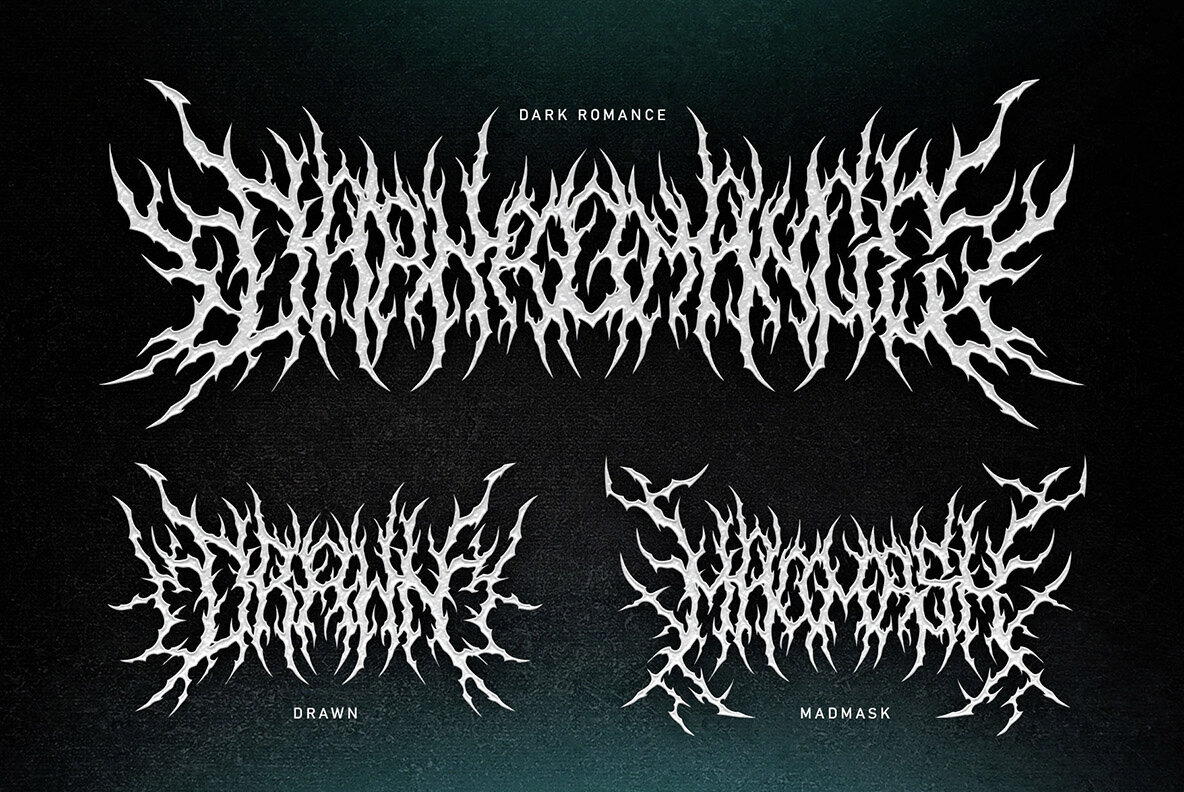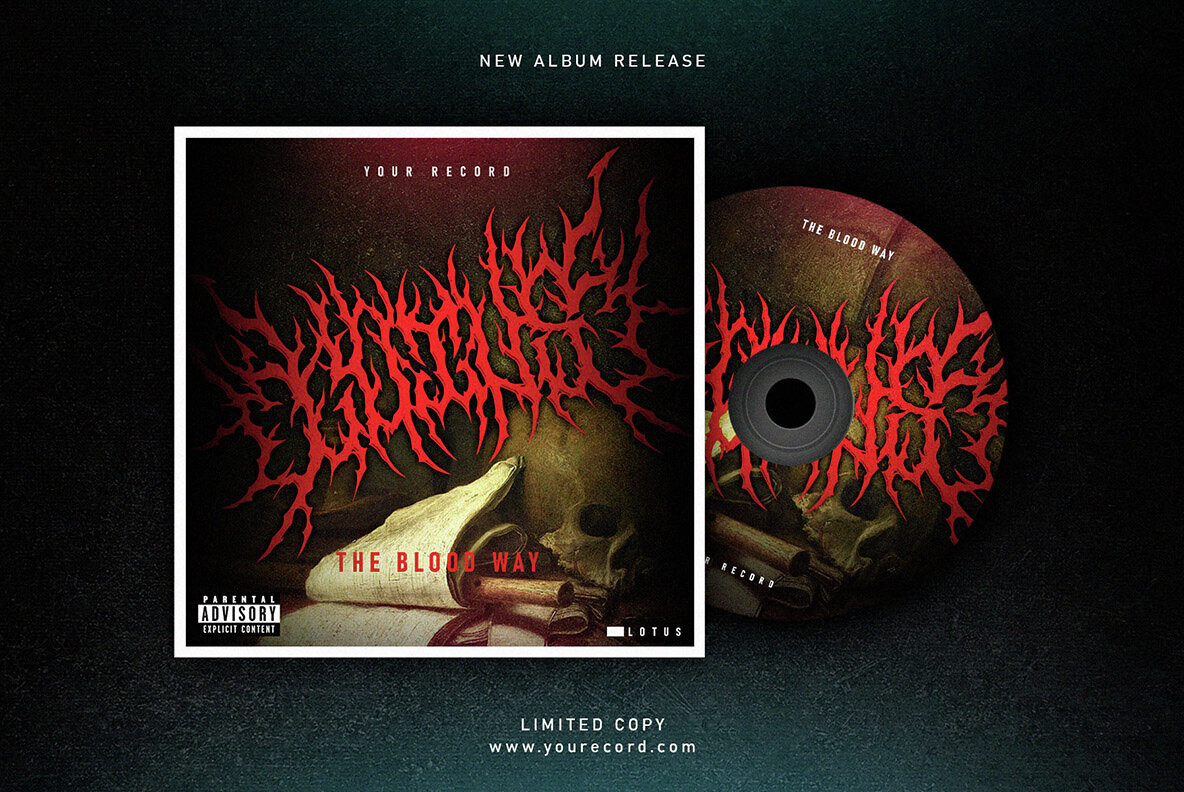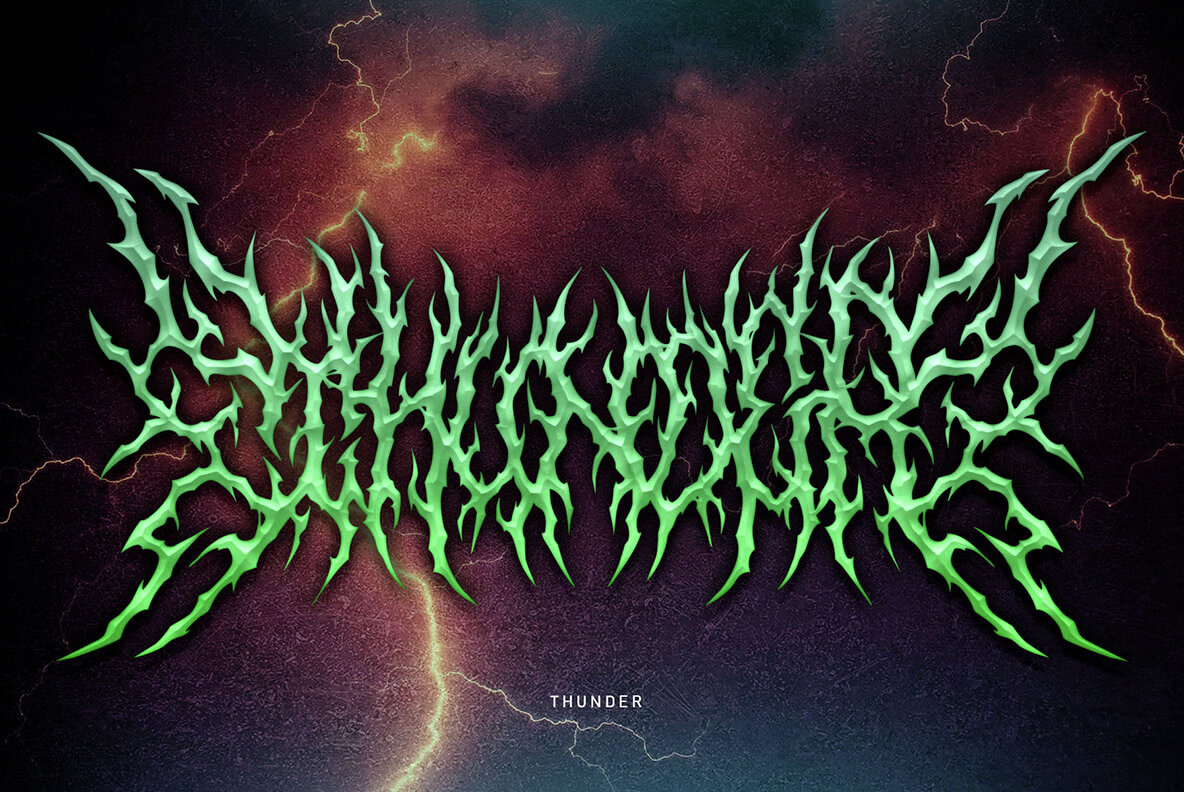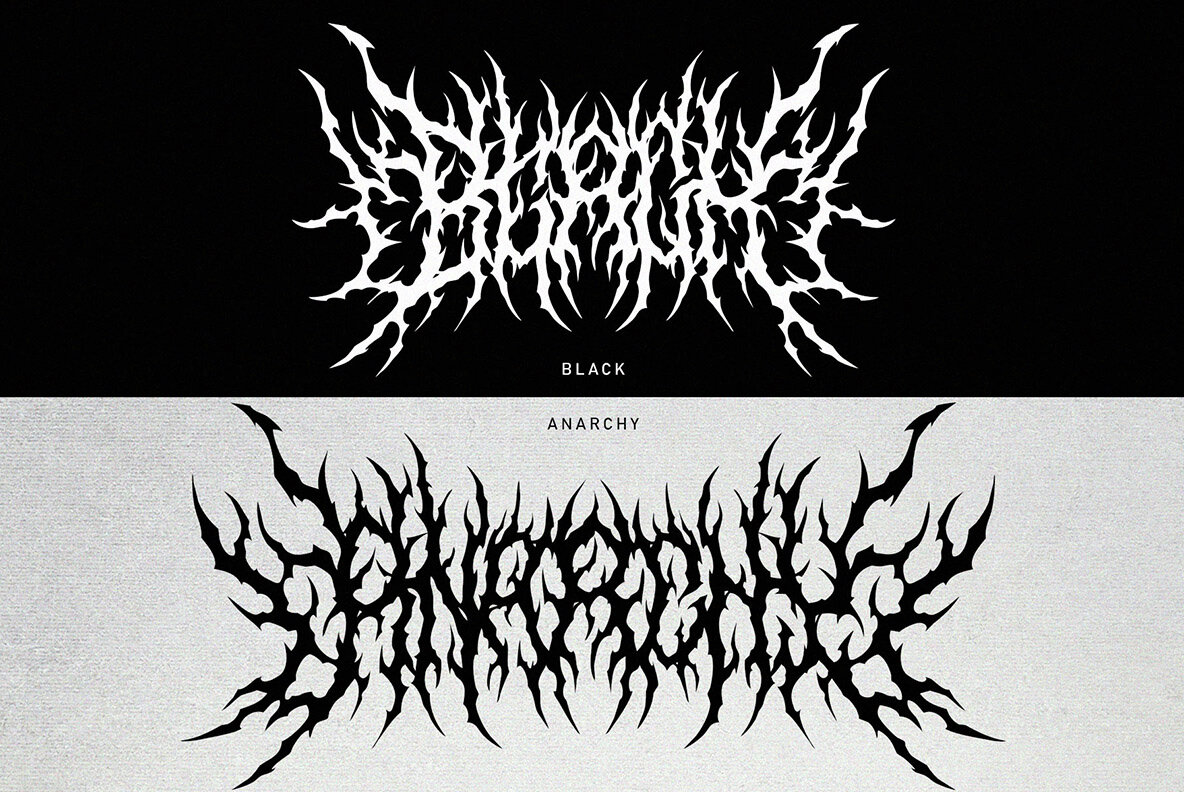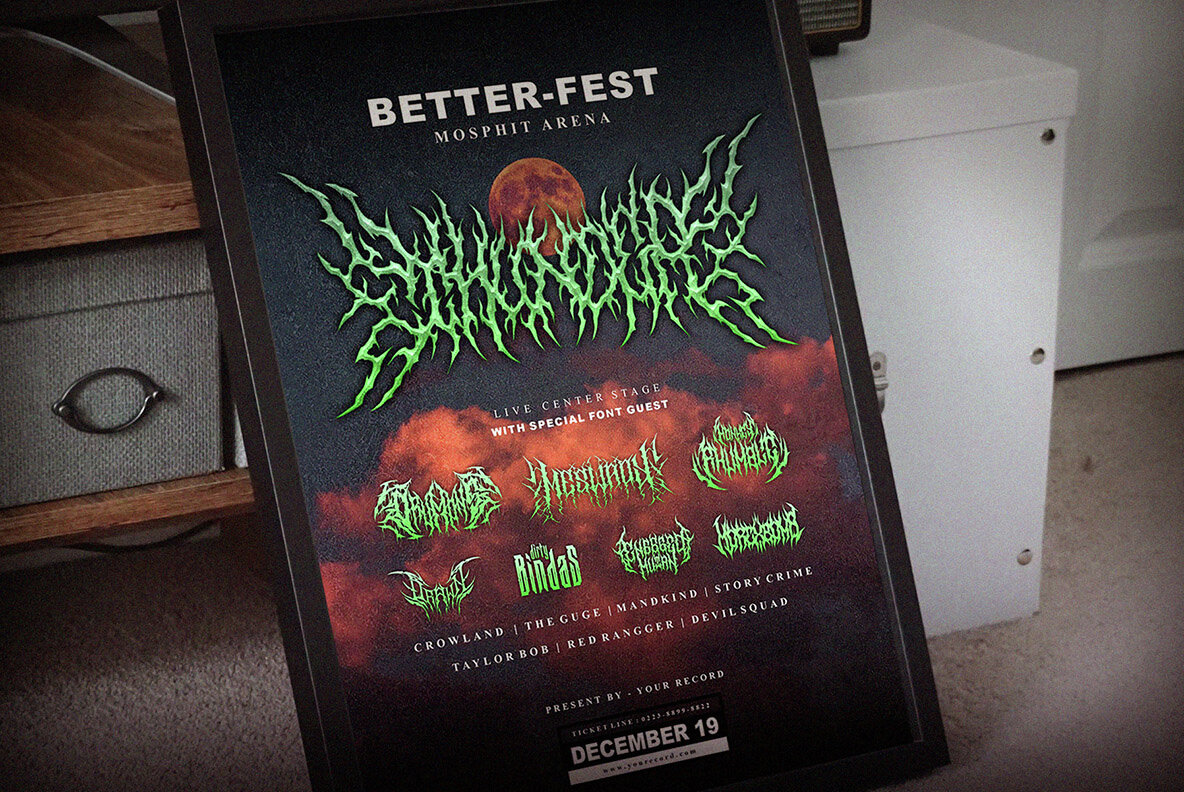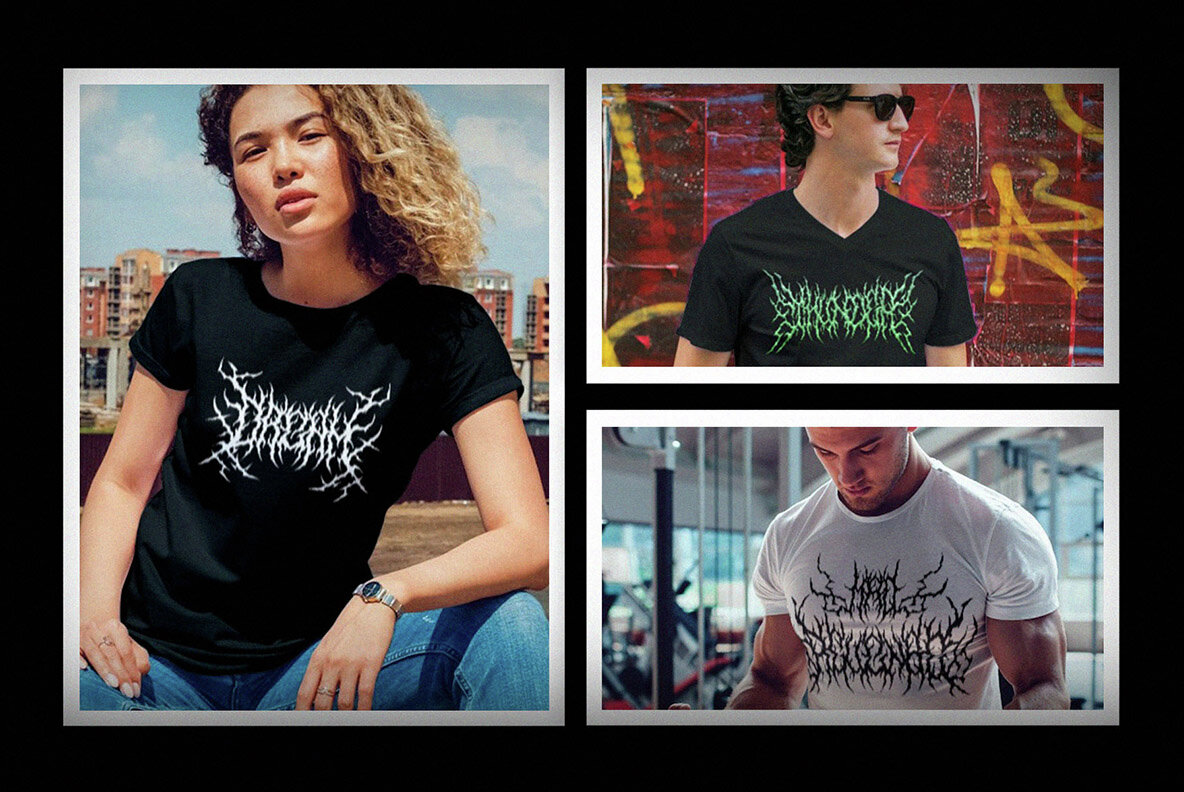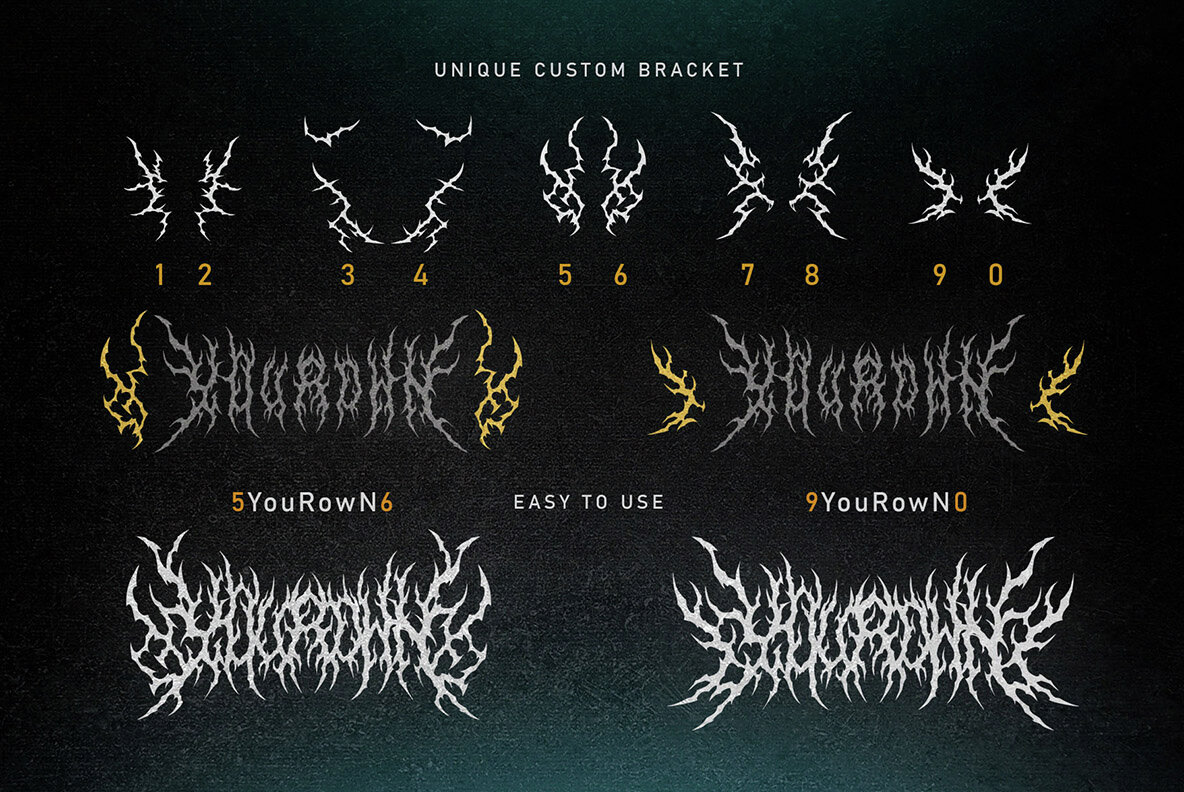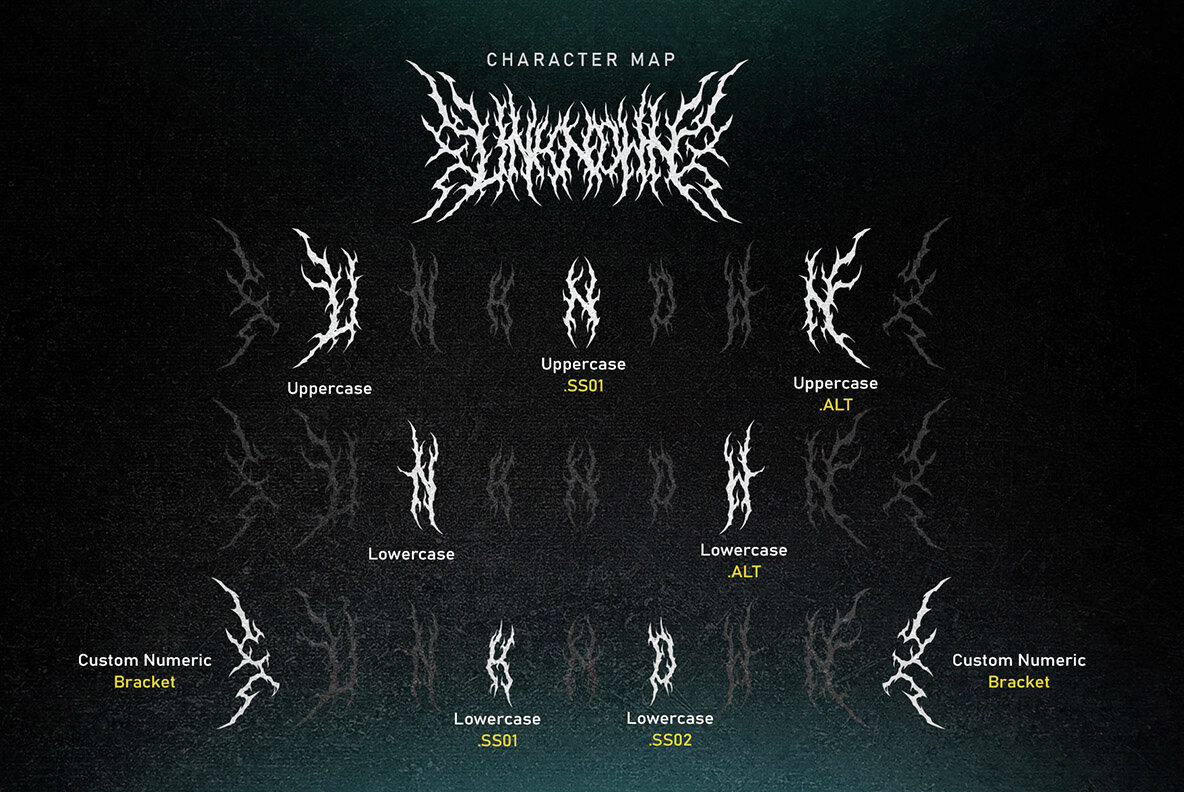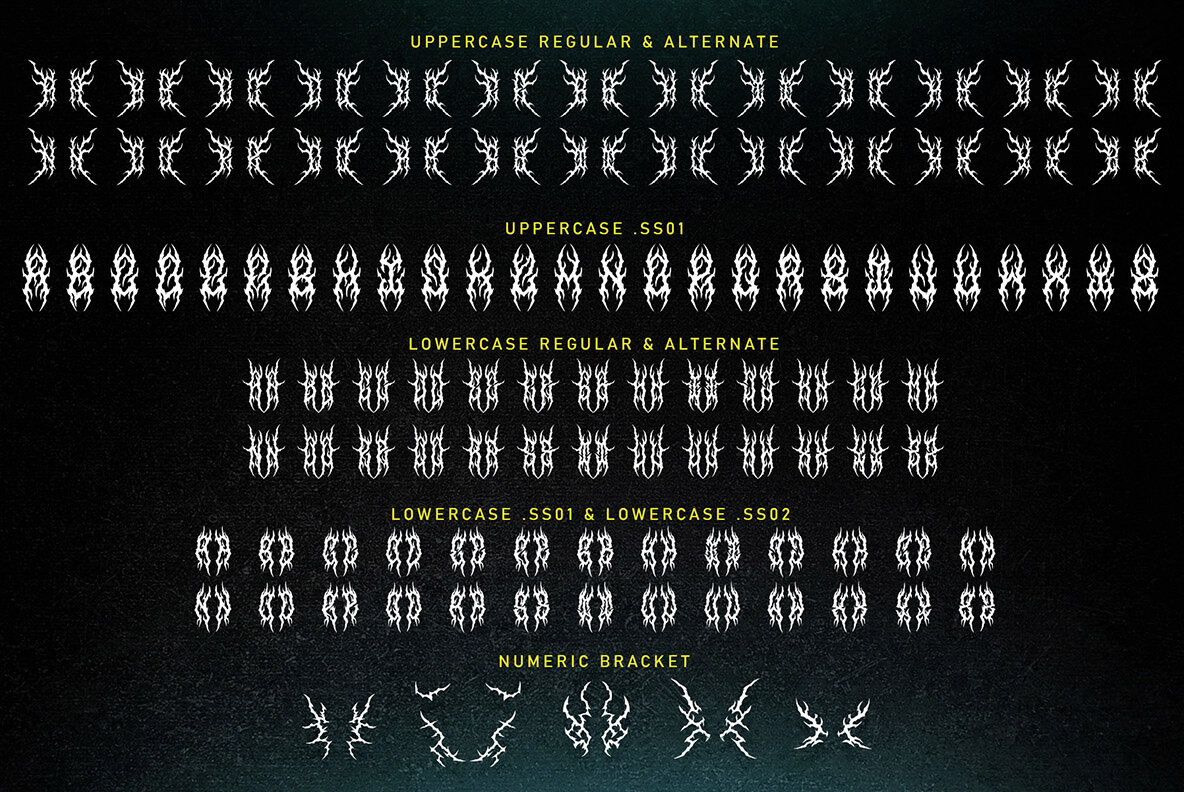
Mad Revenge Font
Mad Revenge Regular
Mad Revenge is a metal font that exudes raw intensity and burning fury. Its bold and sharp design captures the essence of vengeful defiance. Each letter is meticulously crafted with intricate details, featuring aggressive and daring elements. This makes it perfect for creating a strong, energetic look in metal music, alternative culture, and related design projects.
From its jagged edges to its commanding form, Mad Revenge delivers a deep and dramatic impression, ideal for album covers, merchandise, and any project requiring an edgy and spirited touch. This font not only stands out visually but also conveys a powerful message full of emotion and intensity.